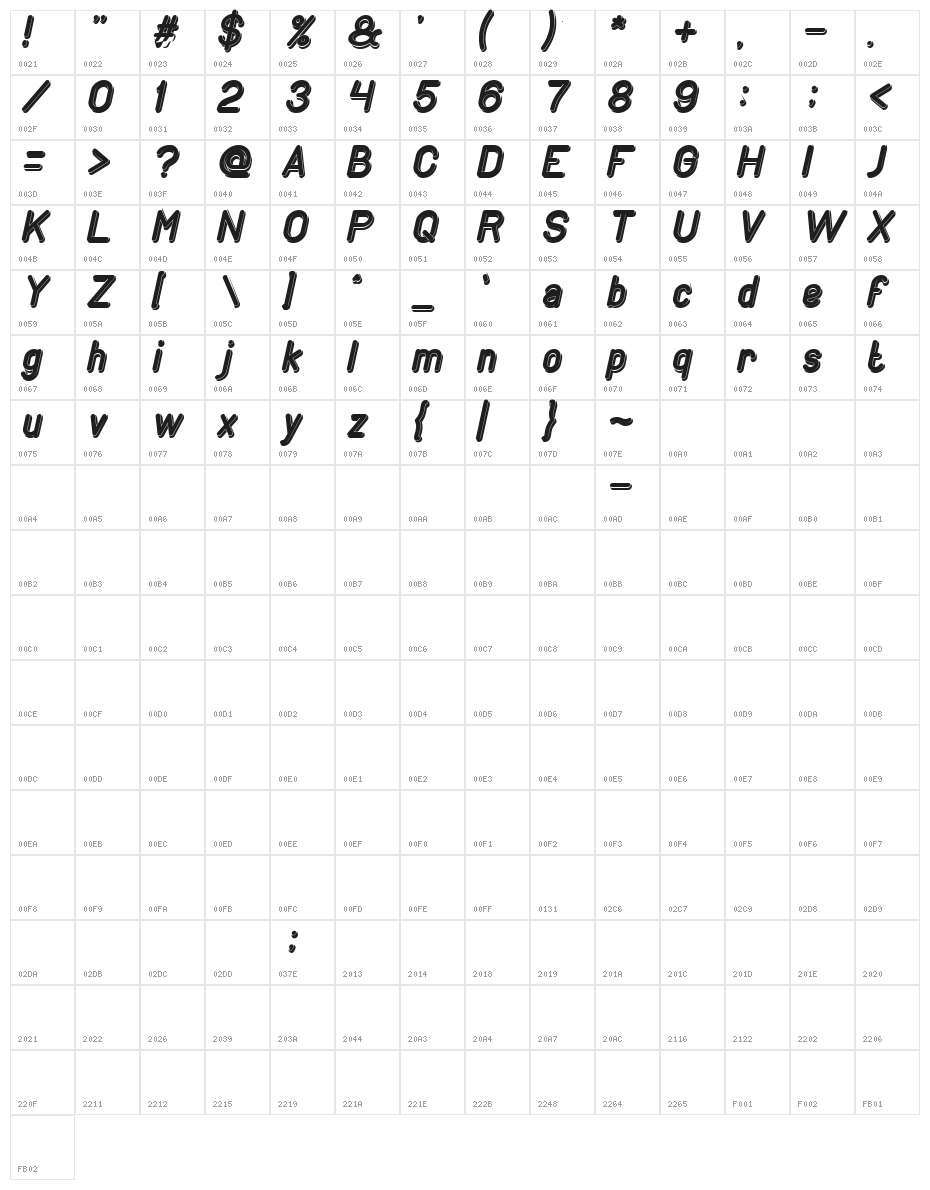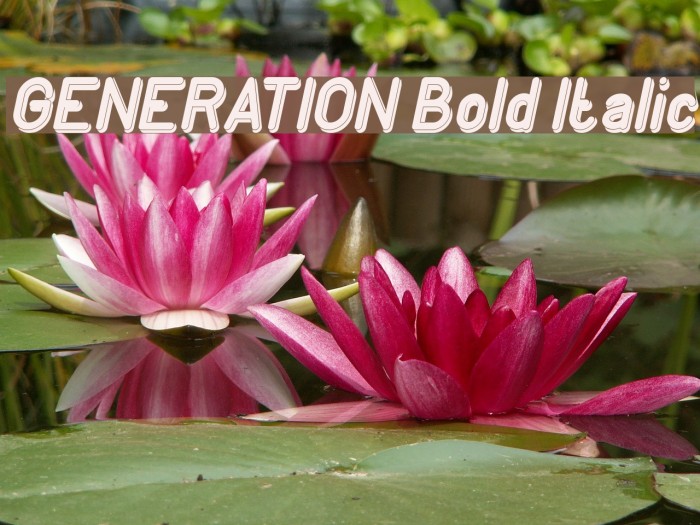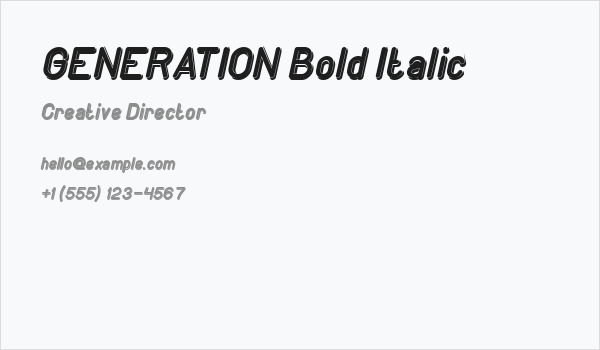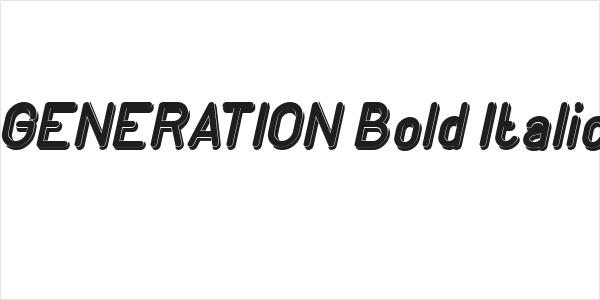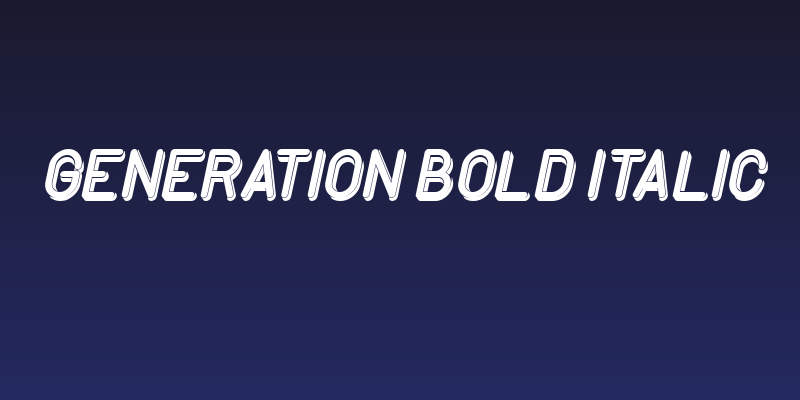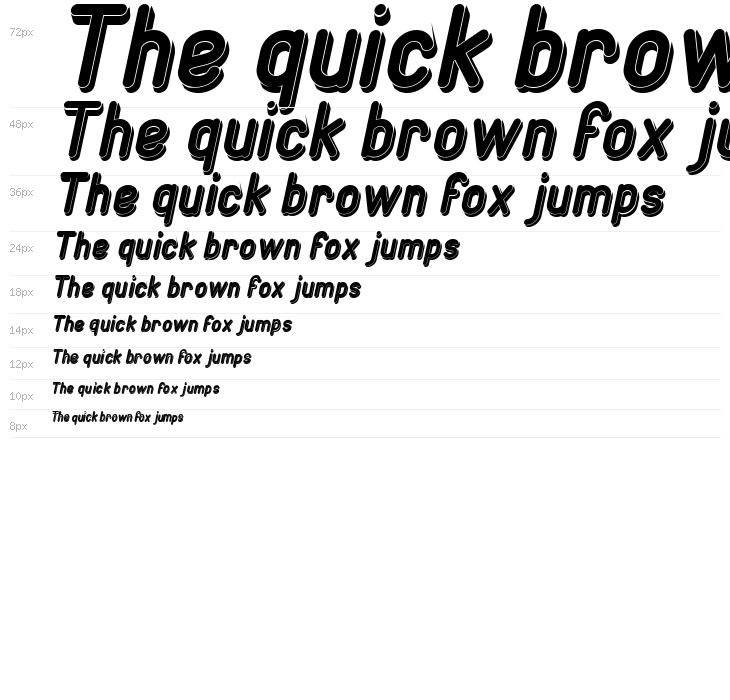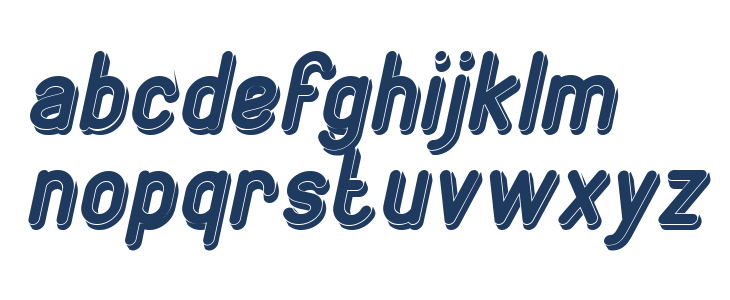
GENERATION Bold Italic Font
GENERATION Bold Italic Description
This font features a bold and italicized style, characterized by its strong presence and dynamic slant. The letters are thick and robust, with a slight shadow effect that adds depth and dimension. The uppercase and lowercase letters maintain a consistent weight, providing a cohesive look across the alphabet. The numerals are equally bold, ensuring readability and impact. Special characters are included, matching the overall bold and italicized aesthetic. This font is designed to stand out, making it suitable for attention-grabbing headlines and titles.
| Proposed Projects | Ideal for headlines, posters, branding materials, and any design requiring a bold statement. |